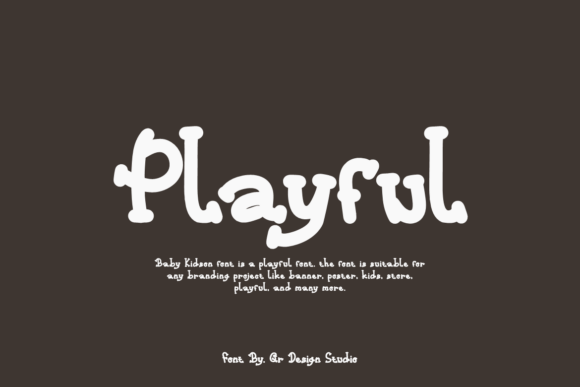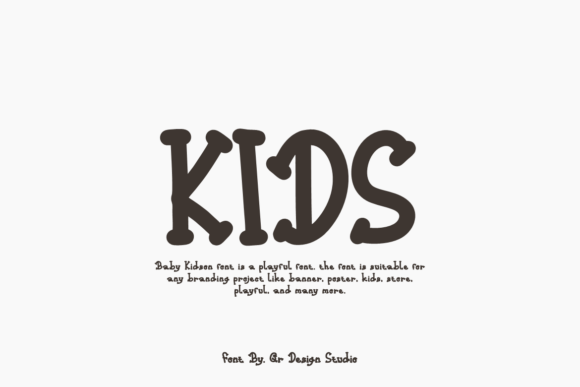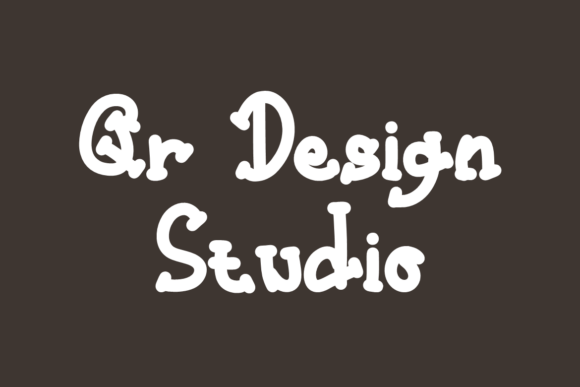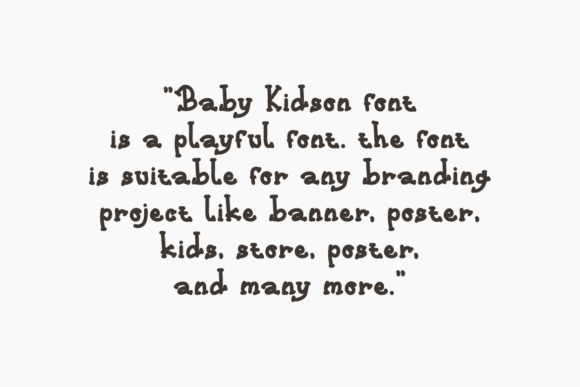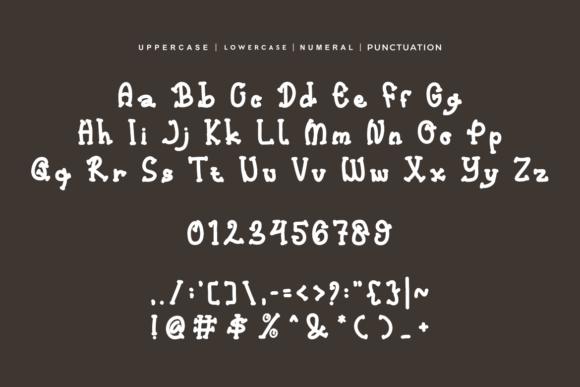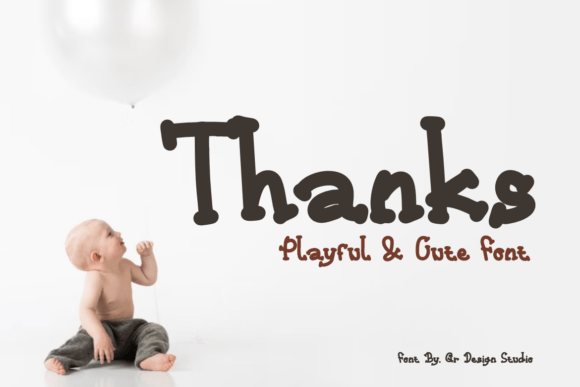
Unleash Your Creativity with the Adorable Baby Kidson Font
Have you ever stared at a blank canvas, waiting for inspiration to strike? That’s exactly where I was when I stumbled upon the charming Baby Kidson Font. Its playful, handwritten design instantly captured my attention, and I knew I had to learn more.
This delightful font is perfect for adding a touch of whimsy to your creative projects. Whether you’re a designer, artist, or simply someone who loves to craft, the Baby Kidson Font is sure to bring a smile to your face. Its unique, handwritten style makes it a valuable addition to any design arsenal, allowing you to add a personal touch to your work.
So why not give the Baby Kidson Font a try and see where your creativity takes you? With its adorable charm and versatility, you’ll be amazed at the incredible results you can achieve.
Baby Kidson Font Key Features
- Unique Characteristics: The font features playful and whimsical letterforms, with rounded edges and a childlike charm. It is ideal for use in children’s books, nursery decor, and other applications where a friendly and approachable tone is desired.
- Font Style: Casual, Script, and Display
Baby Kidson Font Review
Overall, I’d say the Baby Kidson Font is a cute and playful addition to any design project. Here’s what I like about it:
- ✨ Whimsical feel: The font has a charming, childlike quality that’s perfect for projects targeting young audiences.
- ✨ Versatility: Baby Kidson Font comes in a range of weights and styles, making it suitable for a variety of design applications, from headings to body text.
- ✨ Unique character: The font’s distinctive letterforms and flourishes add a touch of personality to any design.
- ⚠️ Limited legibility: At smaller font sizes, the Baby Kidson Font can become difficult to read, especially in block text.
- ⚠️ Limited support for non-English languages: The font’s design may not be optimized for non-Latin scripts, which could lead to compatibility issues.
Overall, I’d recommend the Baby Kidson Font for projects where a playful, whimsical feel is key. While it may not be the best choice for complex or highly readable text, it’s perfect for adding a touch of personality to headings, titles, or other design elements.
The Baby Kidson font is ideal for creating playful, whimsical designs. Use it for:
Children’s book covers
Party invitations
Wedding stationery
Keep in mind that the Baby Kidson font is a decorative font and should be used in moderation to avoid overwhelming the design.
Alternatives to “Baby Kidson Font” for Designers
The Great Vibes Font is a modern script font that is perfect for creating a playful and whimsical atmosphere. It is ideal for use in headings, titles, and quotes. The font is highly customizable, allowing designers to adjust its size, color, and style to suit their needs.
Compared to Baby Kidson Font, Great Vibes Font has a more contemporary and sophisticated feel. While Baby Kidson Font is more childlike and playful, Great Vibes Font is more versatile and can be used in a wide range of design projects.
Carolyna Pro Font is a elegant and sophisticated script font that is perfect for creating a luxurious and high-end atmosphere. It is ideal for use in branding, packaging, and advertising materials. The font is highly customizable, allowing designers to adjust its size, color, and style to suit their needs.
Compared to Baby Kidson Font, Carolyna Pro Font has a more refined and polished feel. While Baby Kidson Font is more playful and childlike, Carolyna Pro Font is more sophisticated and elegant.
Alex Brush Font is a beautiful and elegant script font that is perfect for creating a romantic and whimsical atmosphere. It is ideal for use in headings, titles, and quotes. The font is highly customizable, allowing designers to adjust its size, color, and style to suit their needs.
Compared to Baby Kidson Font, Alex Brush Font has a more refined and sophisticated feel. While Baby Kidson Font is more playful and childlike, Alex Brush Font is more elegant and refined.
Unique Designs with Baby Kidson Font
What is the recommended font size for using the Baby Kidson Font?
The Baby Kidson Font is designed for use at various font sizes, but optimal readability is achieved between 12pt and 24pt. For digital applications, consider using a font size between 14pt and 18pt to ensure clear readability on various screen resolutions.